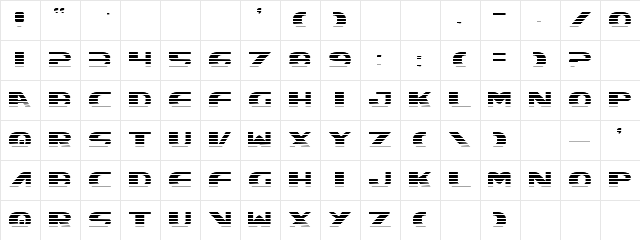
Excelsior Gradient Gradient
Design Context for Excelsior Gradient Typeface
Excelsior Gradient is a composed and adaptable typeface that performs quietly and consistently across a wide range of design contexts.
Pro Tip: Use Excelsior Gradient in both headline and body roles to test its range before committing to a single application.